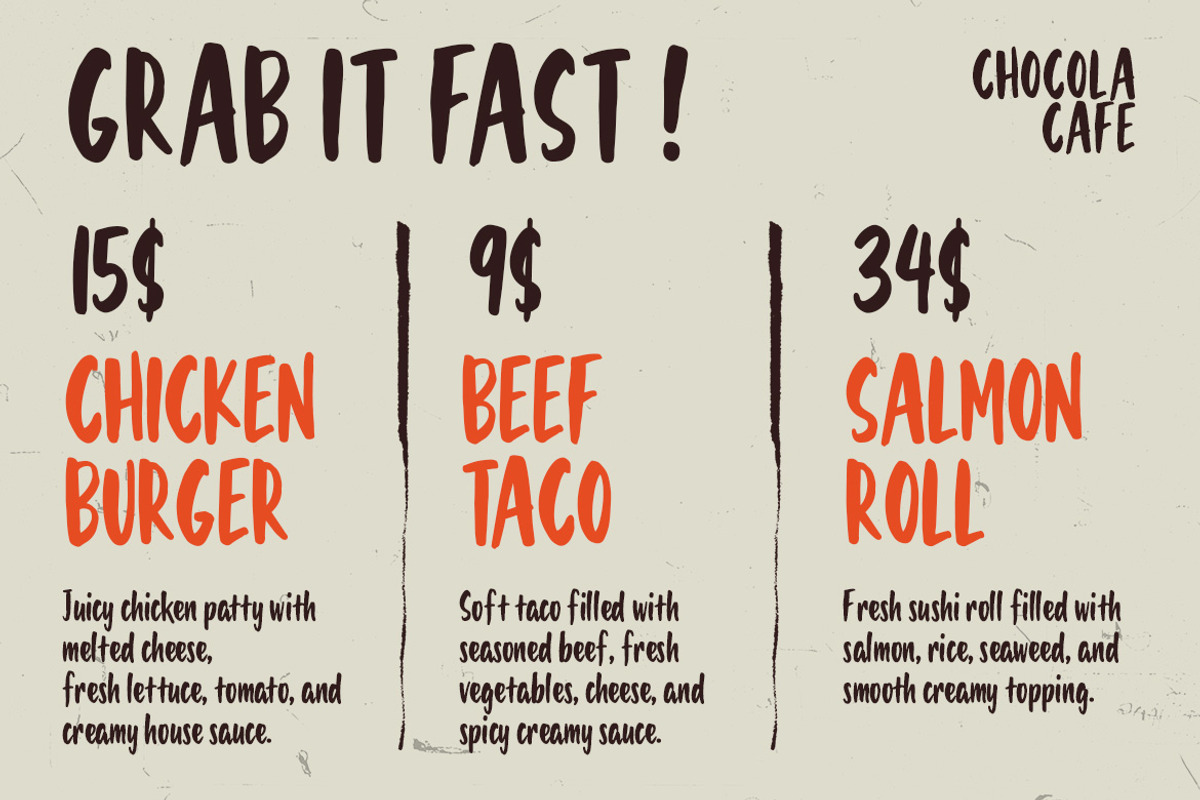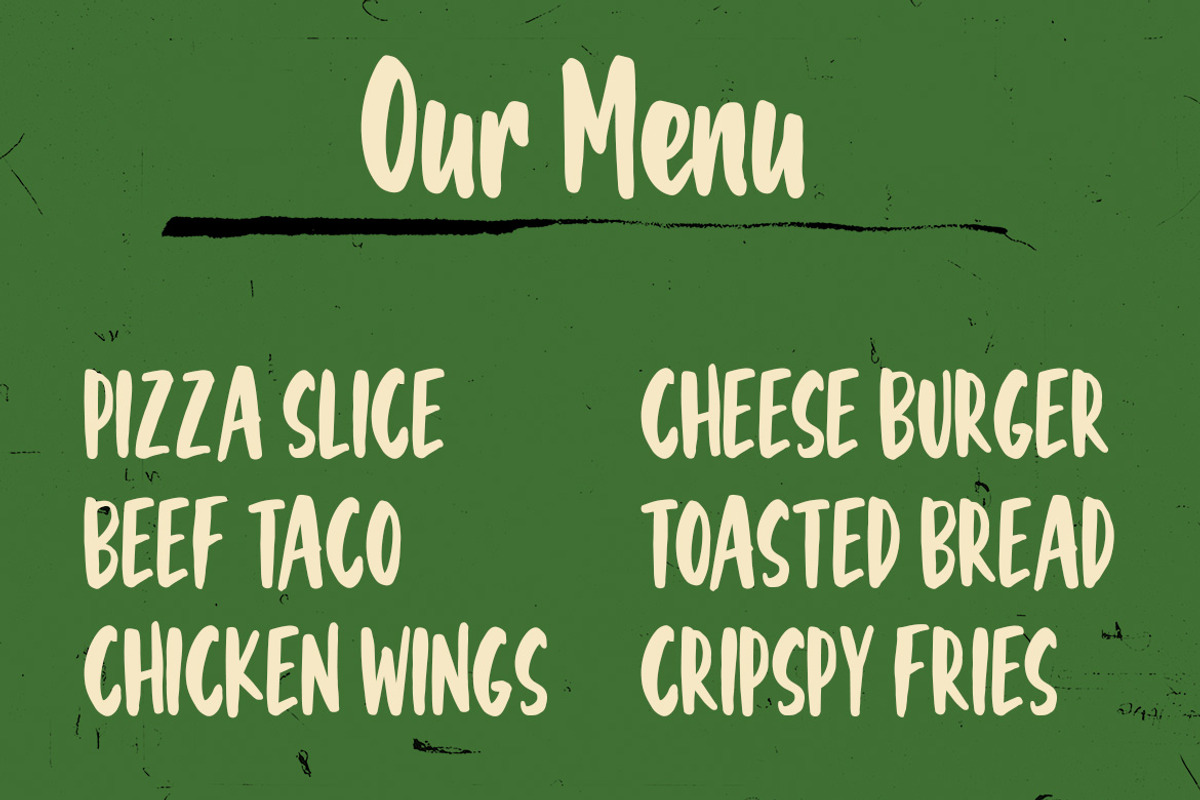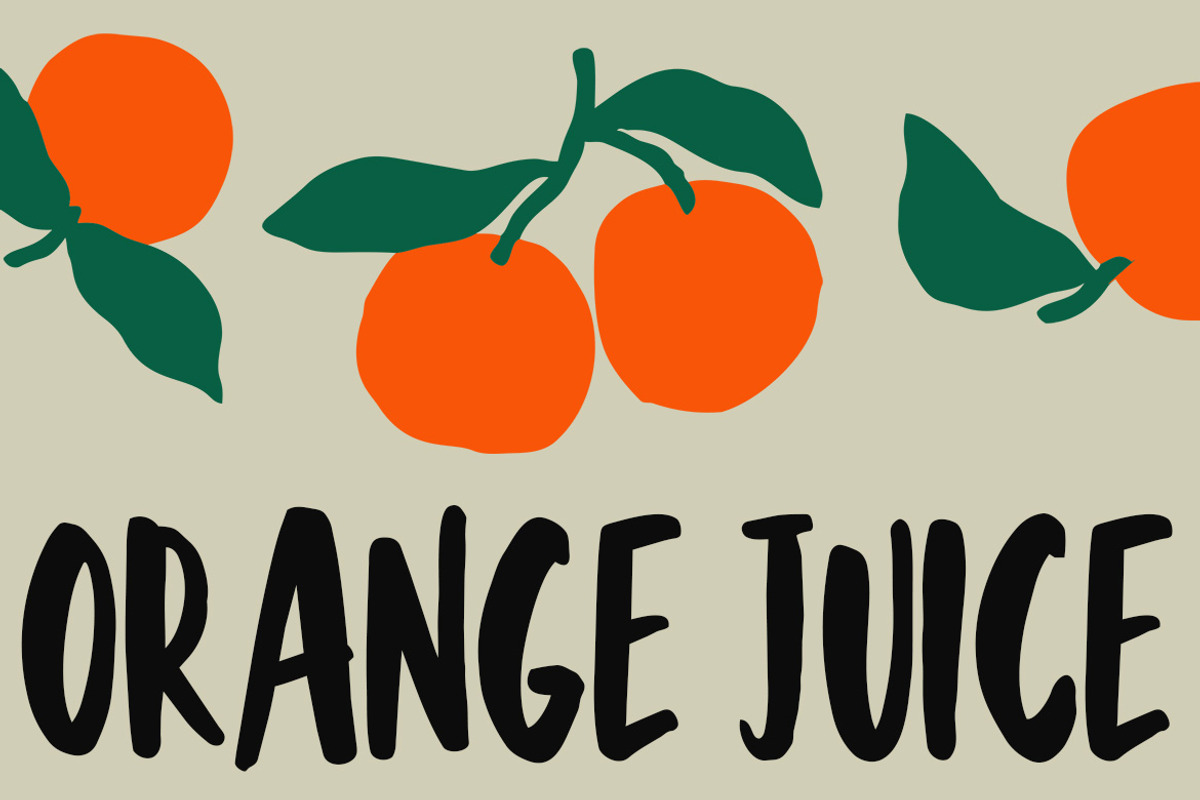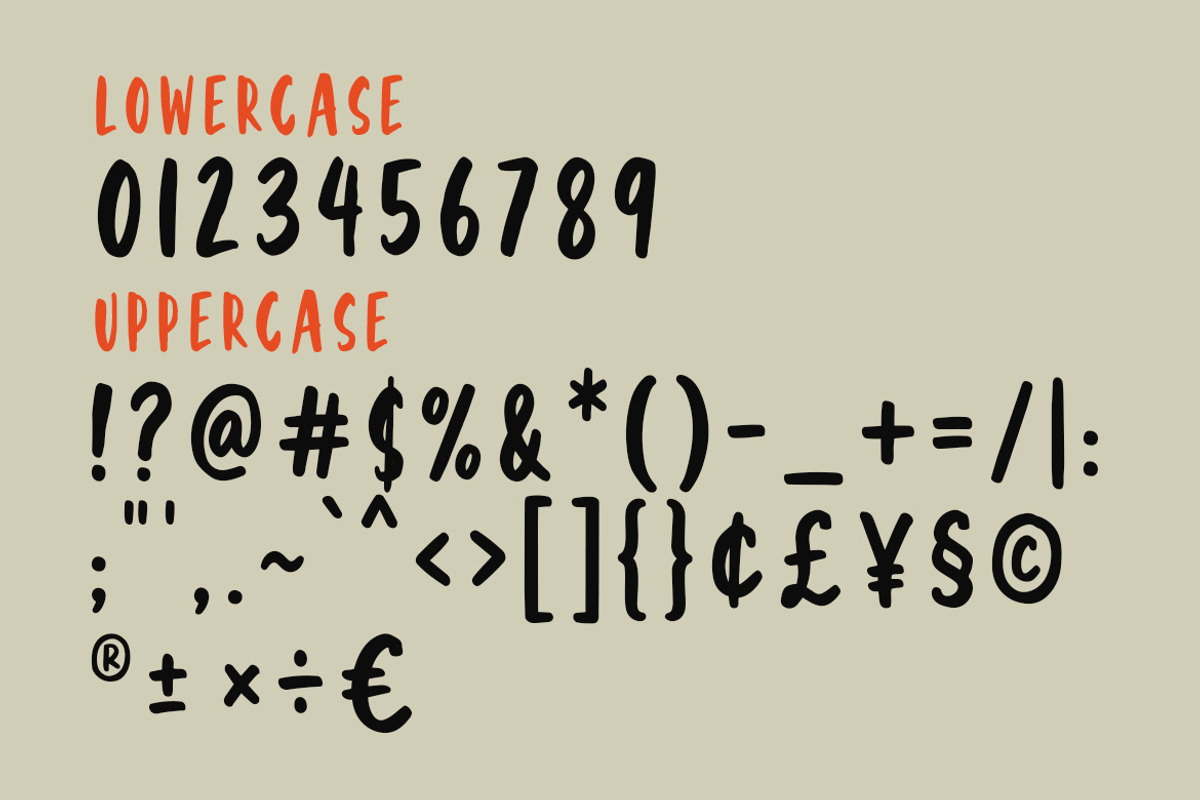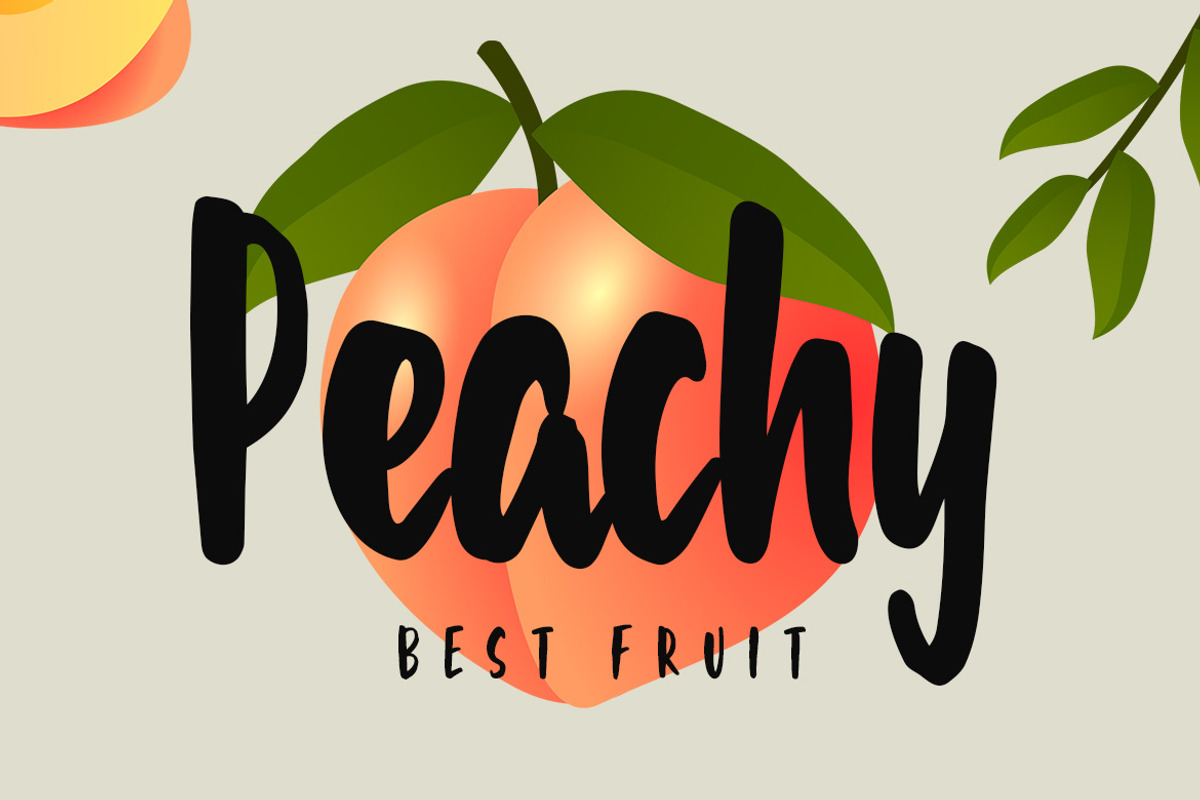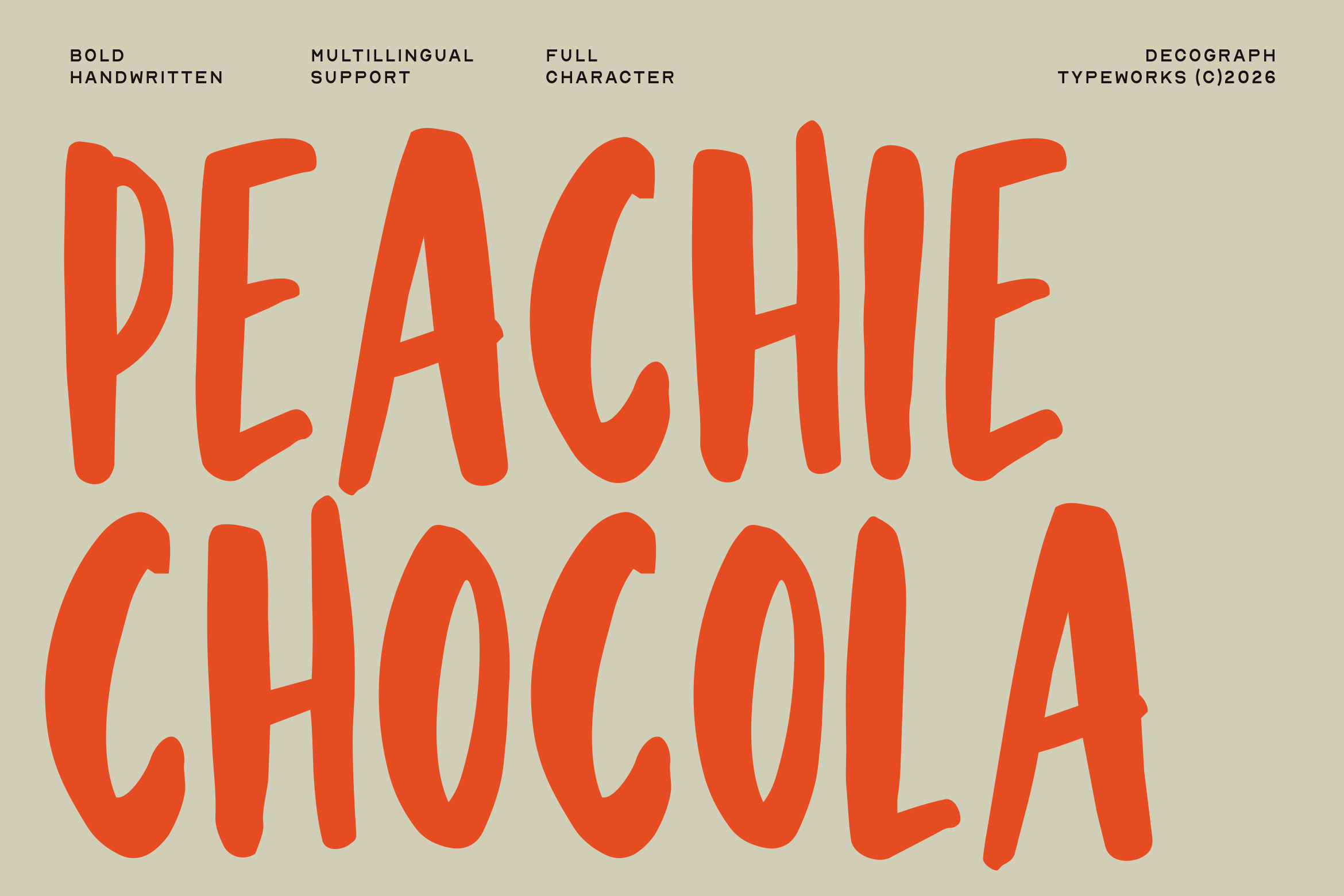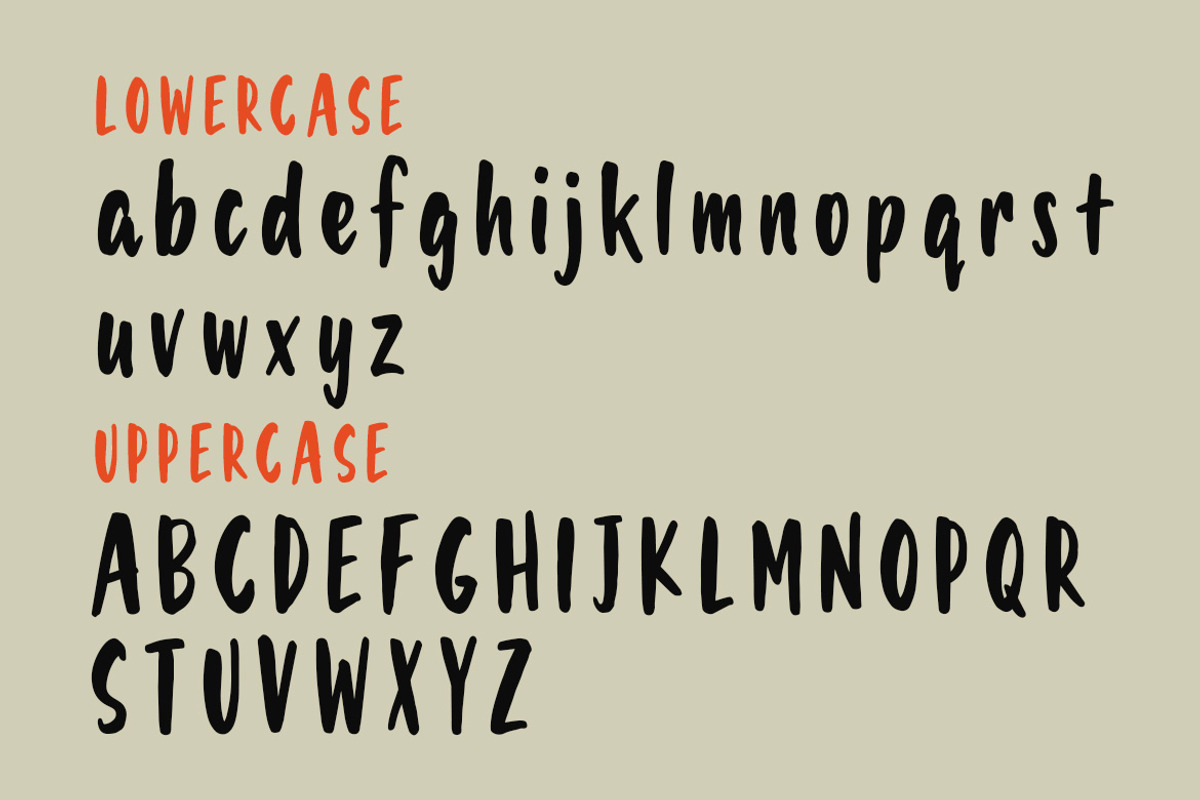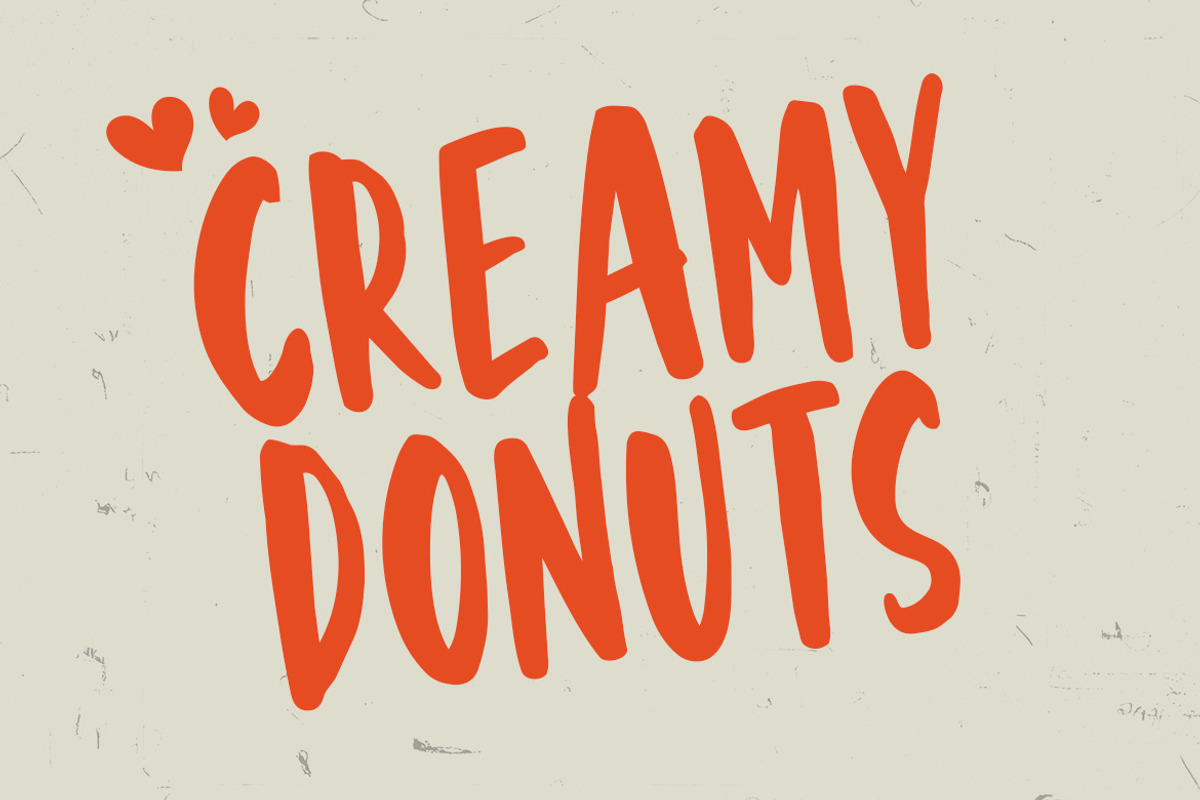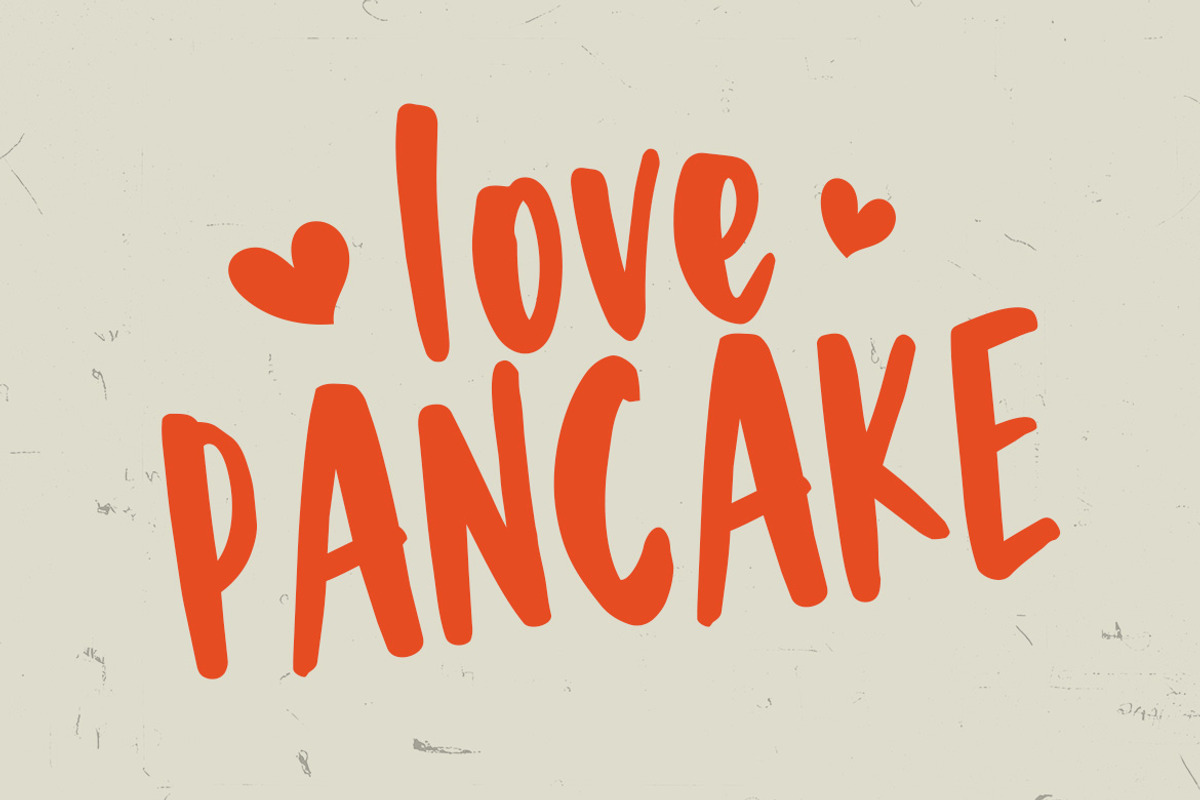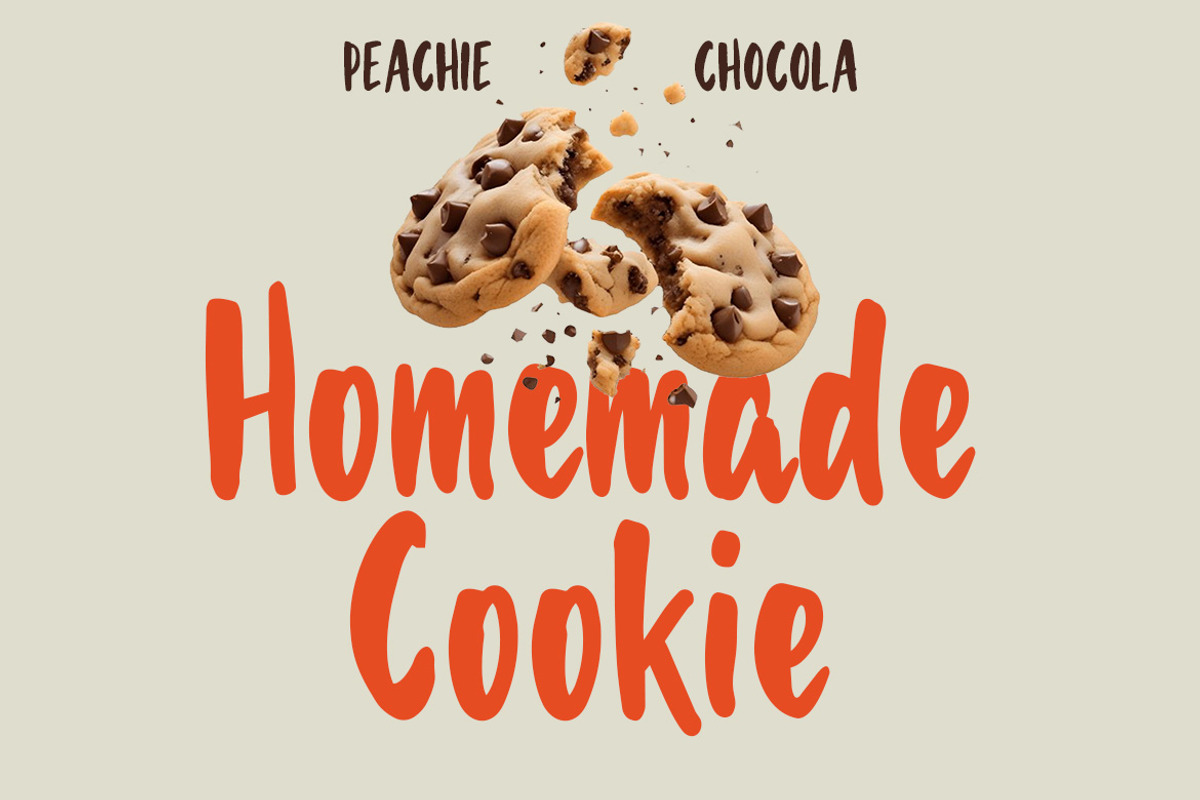
Peachie Chocola – Handwritten Font
PEACHIE CHOCOLA is a bold handwritten display typeface with tall, irregular letterforms and a loose hand-drawn rhythm. Its heavy strokes, softly rounded edges, uneven proportions, and naturally varied construction give the alphabet a friendly, energetic character while keeping the shapes clear and highly readable. The typeface feels casual, playful, and handmade, making it especially suitable for food branding, cafe identities, packaging, posters, menu graphics, merchandise, and social media. PEACHIE CHOCOLA brings an expressive handcrafted presence to designs that need warmth, personality, and an approachable visual tone.
Smooth Kerning